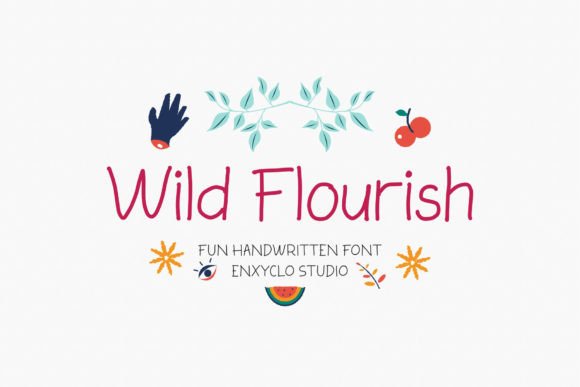
Presenting the Wild Flourish Font: Your Secret Weapon for Captivating Kids and Unleashing Your Imagination!
Prepare to be enchanted by Wild Flourish, a font that embodies the unbridled joy and boundless creativity of childhood. This captivating script font is more than just a collection of letters; it's a gateway to a world where imagination takes flight and stories come alive with an unparalleled charm.
Whether you're an aspiring author crafting whimsical tales for young minds or a designer seeking to add a touch of magic to your projects, Wild Flourish has the power to transform your words and visuals into unforgettable experiences. Its playful and organic strokes dance across the page, inviting readers to embark on an extraordinary journey filled with laughter, wonder, and endless possibilities.
This font is a true masterpiece, meticulously designed to make your words shine brighter than ever before. Its versatility knows no bounds, perfectly suited for children's books, greeting cards, posters, invitations, and any project that calls for a touch of lightheartedness and creativity.
With Wild Flourish, you'll have the power to:
- Craft enchanting children's books that ignite a passion for reading and transport young minds to magical realms.
- Create eye-catching posters and invitations that burst with personality and invite kids to join in on the fun.
- Design heartfelt greeting cards that express your love and affection with a touch of whimsy.
- Unleash your creativity in endless projects, knowing that Wild Flourish will add a touch of magic to each one.
At its core, Wild Flourish is more than just a font; it's an invitation to reconnect with your inner child, embrace the power of imagination, and share your stories with the world. So, whether you're a seasoned writer or a budding artist, let Wild Flourish be your guide into a realm where creativity knows no limits!